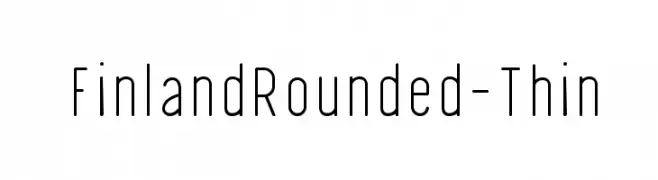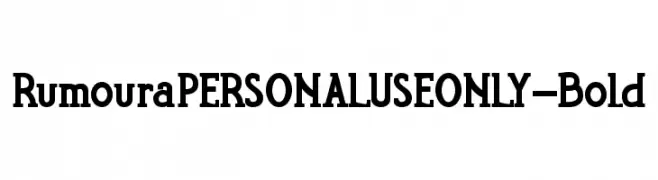
( Andrii Shevchyk )
A sleek, modern font with geometric lines and a futuristic appeal.
( Barbara Nixon )
A classic typewriter-style font with monospaced, slightly serifed characters.
( Christian Munk - fontstruct.com/fontstructors/25776/cmunk )
A pixelated serif font with a retro digital style.
( Craft Supply Co. - creativemarket.com/craftsupplyco )
A modern, rounded font with thin strokes and a sleek, minimalist design.
( Cristian Camilo Otalvaro Lopez )
A bold, rounded typeface with a modern and impactful design.
( George J Fox )
A bold, geometric font with a modern, industrial style and tight character spacing.
( Goma Shin - gomaricefont.web.fc2.com/ )
A bold, vintage-inspired serif font with strong, blocky characters and a touch of elegance.
( Haksen Letters - Sarwo Edhi Prayitno )
A modern, geometric font with clean lines and a balanced structure.
( INKsTYPIA - Andi Winarno - inkstypia-std.blogspot.com )
A bold and robust font with thick strokes and a strong presence.
( Michael Hassler - hassified.blogspot.com/ )
A bold, handwritten-style font with a modern, architectural aesthetic.